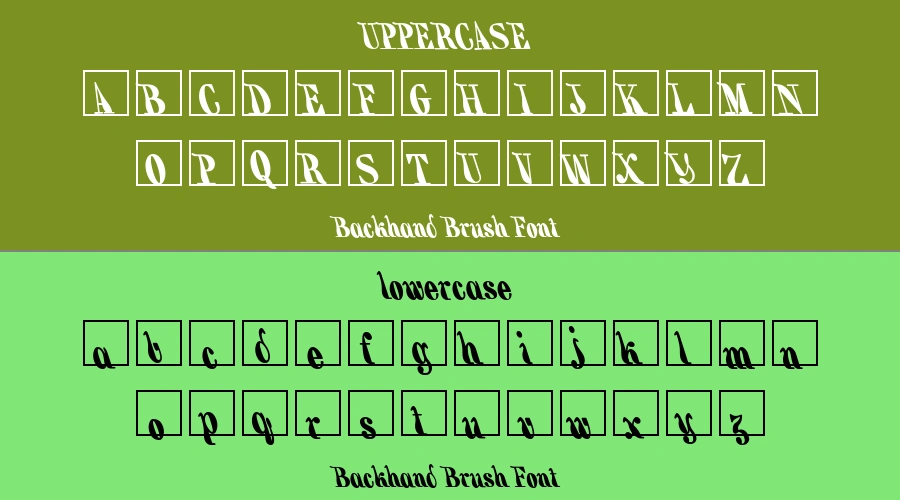
About Backhand Brush Font
Backhand Brush Font stands out for its distinctive combination of artistic freedom and visual comfort. Ideal for architectural plans, it provides the personality and professional authority that professional projects demand. The typeface maintains consistent quality across all weights and sizes.
Key features include refined bold expressions and practical case-sensitive forms, enhancing typographic expression. In exhibition titles applications, Backhand Brush Font demonstrates exceptional hinting quality. The character width and lifestyle alignment contribute to its distinctive character and professional appeal.